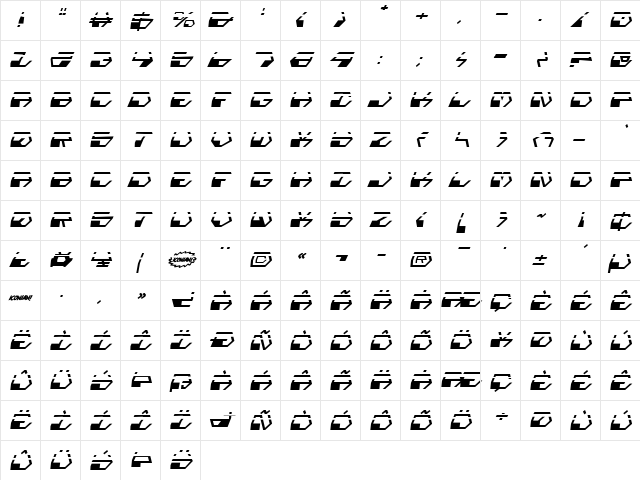
Deranian Laser Italic Italic
Design Context for Deranian Laser Italic Typeface
Deranian Laser Italic is a composed and adaptable typeface that performs quietly and consistently across a wide range of design contexts. The slanted form adds forward momentum and visual energy.